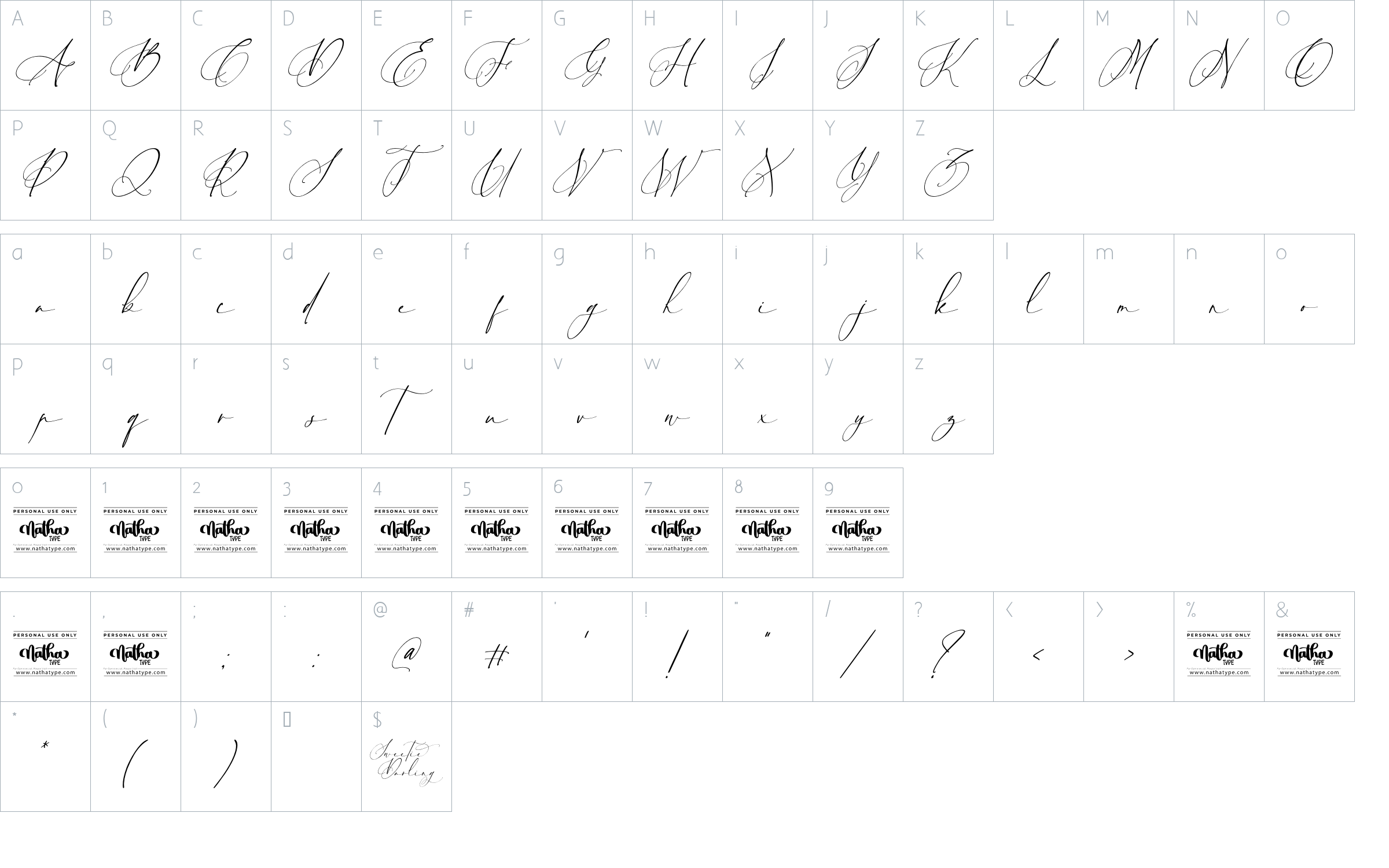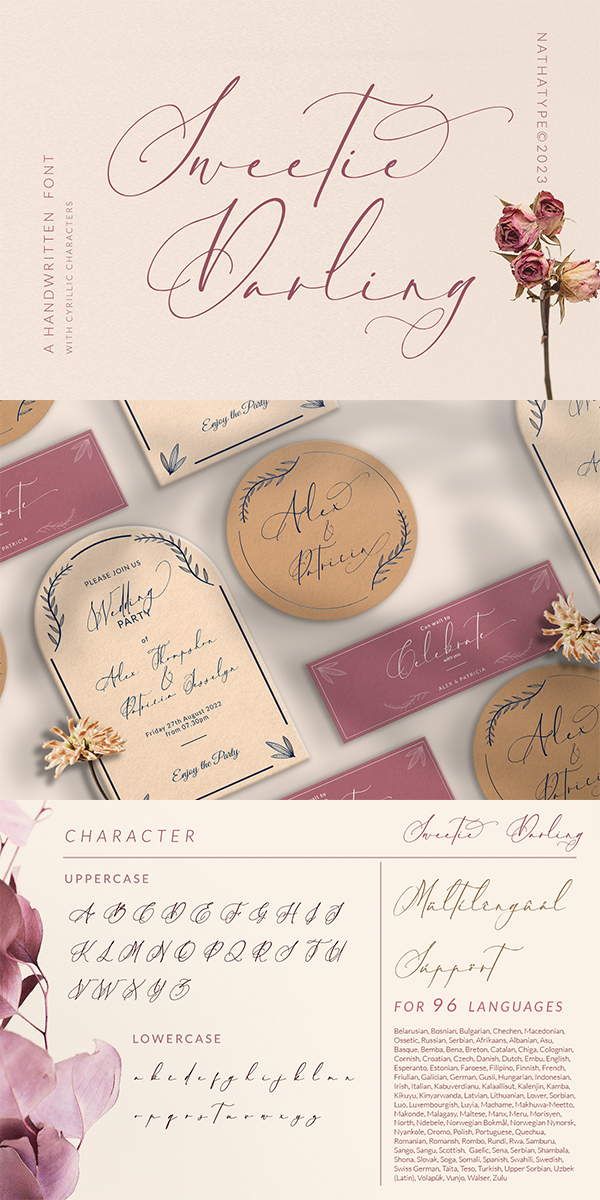
Sweet Darling Font
About Sweet Darling
Sweetie Darling is a cursive-style handwriting script font. Like other cursive font designs, the letters are interconnected, but another character of this font is that the letters have high contrasts in curved edges to beautify the display. Due to the seemingly complex font style details to add the font’s legibility, it is suggested to apply this font for big text sizes. Additionally, you can enjoy the available features here.
Sweetie Darling fits best for various design projects, such as brandings, headings, magazine covers, quotes, invitations, greeting cards, printed products, merchandise, social media, etc. Find out more ways to use this font by taking a look at the font preview.